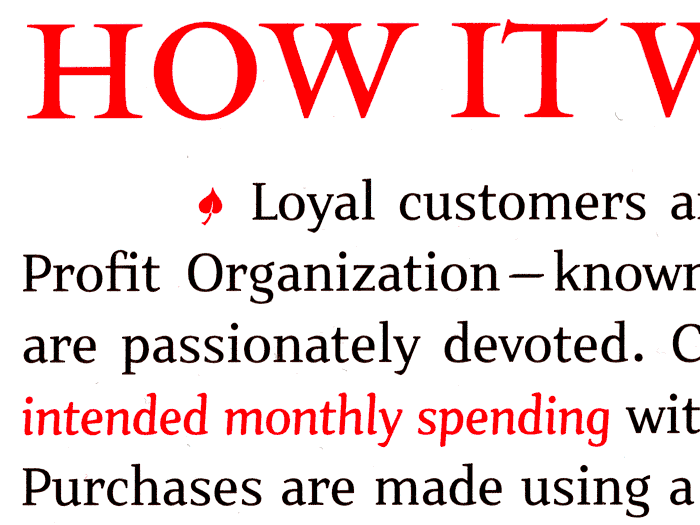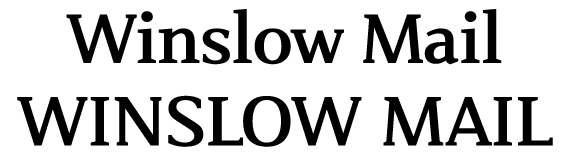
okay, i'll try this again... our staff here at the Winslow Mail is in the process of giving our paper a facelift and i've been assigned the task of giving some guidance to this transformation. (that's kinda scary) First on our list is to rework the mast head, the current one is pretty atrocious, i'll post it for you. So my publisher wanted me to come up with several designs that we'll let our readers choose from to be the final nameplate. I was looking through old editions and found that the paper's header kept going back and forth between different blackletter designs and a more simple, serif design, lemme show you what i mean... I really like this blackletter and am thinking of cleaning it up for one of my designs, another blackletter face i'd like to see head our paper is Agincourt (http://www.myfonts.com/Search?searchtext=agincourt) , but i'm worried that that may be a bit too fussy, but i'm a sucker for blackletter, so i need a more balanced opinion. For some other designs i need a face that's classy, simple, clean, but still has some personality. Any suggestions are welcome. Evenutally i'm hoping we'll change our body type and the type for headers and would appreciate any suggestions there as well. I took a look at fontbureau's fonts for newspapers last nite and none of them really grabbed me and that's about as far as i've researched thus far. Anyhow, thanks for your interest and any suggestions/feedback.
Some questions: 1) What is the target demographic of the paper? 2) What are the body and headline fonts in use? 3) Do you have authority to redo the whole typography, or just the masthead?
BTW, since this isn't a "big-city" paper, I wouldn't discount the not-classy but certainly comfy Cheltenham (in that 1913 masthead).
yeah i was looking at jim's work yesterday as a source of inspiration. thnx for pointing me in the right direction for a text face, any bright ideas on a good face for a the faceplate tho?
i knew i could count on you to pull though for me, hrant. lemme see if i can answer your questions adequately: 1) Our target demographic is the residents of Winslow, AZ and perhaps reaching into Joseph City (my hometown, yay!) Winslow is an old railroad town and i guess most of the citizenship either be classified as bluecollar or small business owners (in my estimation). 2) Currently our whole paper is set in Times (shudder!) and i think it's time that be remedied. Lemme upload this week's front page for ya.
3) abt the authority, we're a small operation here in Winslow. currently i work doing ad design for the Winslow Mail and our sister publication, the Reminder. but our editor (who currently does ALL the layout) is moving back to TX and there is some chance that i may become responsible for layout of the paper. No matter what happens, though, i'm adamant that we sever our ties with Times and find something fresh. I kinda like the Cheltenham (thanks for the ID) mast myself, but would like to see something with a bit more sophistication. We are, however, trying to become "the paper for the people" and want it to have more of a hometown feel, so i don't want to do something too far removed from the people we're trying to reach. (did i put in enough inconsistencies there?) anyhow all suggestions are welcome. Thnx again!
The New York Times did a redesign using Cheltenham for the heads and subheads. I remember listening to the designer talk about the redesign on NPR this last summer. I think you need to divide the projects into small parts and address the biggest problem first. Don't try to fix everything at once or politics will rear its ugly head. Just some advice
First of all, Paul, I really don't know jack. Stuff I say is based on observation and theory - I have no actual experience in this stuff. So be careful!
What's making Cheltenham a little bit too small-town for your tastes might be the pudgy serifs. So guys, what's a font like Cheltenham with sharper serifs? Paul, what's your budget? In any case, I'd still suggest something honest, sturdy and generous like Cheltenham.
Replacing Times: Check out FontBureau's selection.
That NYT thing was puzzling: as much as I like Cheltenham, and as much as I realize how much that paper has relied on it in the past, it's really too provincial for NY. I think they didn't have the balls to break with the past.
BTW, I'd follow Daniel's advice on the piecemeal approach.
as you can see, it just needs a total revamp: layout, fonts, headings, cutlines, subheads, ad nauseum... The great thing is that we're a small operation and politics won't come into play too much (I HOPE!) as there are only 6-7 of us who actually are involved in putting out the paper (8-12 pages on average once a week) and unfortunately i don't think many of them care as much as i do about the finer details. I don't know if we even have a budget to add typefaces to our library, but if worse came to worse, i'd seriously contemplate doing it piecemeal out of my own pocket. if so my budget would be very limited indeed (but i still think it'd be a good investment!) I checked out fontbureau last nite and nothing really grabbed me, but maybe that was just because i was tired at the end of the day. i'll peruse their library again. thnx again
Paul, rather than a PDF make it into a gif or jpg, the PDF just isn't working.
Check out Font Bureau's Type Specimens Third Edition, you probably can find it at a local library. Its one thing to look at specimens online and definately a different experience seeing blocks of copy printed on paper.
I also suggest visiting newspaper sites online, like The New York Times, The New York Post. It could give you some ideas.
That's odd. I just downloaded the pdf with no problems. i'm just being plagued with technical difficulties on this string! so hrant, were you suggesting Cheltenham for the nameplate or for body text or headlines or what? I looked at a lot of faces last night and the more I looked the more i felt that Cheltenham might be right for body copy or maybe even the nameplate (but my publisher balked when i showed here the 1913 nameplate maybe I could whip something up that makes her change her mind tho) anyhow if you can't load the pdf, i'm sorry, but it's not essential, it just illustrated my point of how tired a paper looks with everything set in Times *yech!* Winslow's library probably doesn't have any type specimen books, but i'll check. I'll try to find something somehwhere! i'm starting to realize that this is going to be a lot of work! i can see the wisdom in breaking things down. thnx again for all yer help.
Paul, one more thought, don't use your own money for a company project. Write a proposal outlining the costs in terms of outside expenses (type) and internal expenses (your time). Place a dollar value on your time (be generious) and double the amount of time you think the project will take. This will place value on your project, plus it will show how little the cost of the type licenses really are.